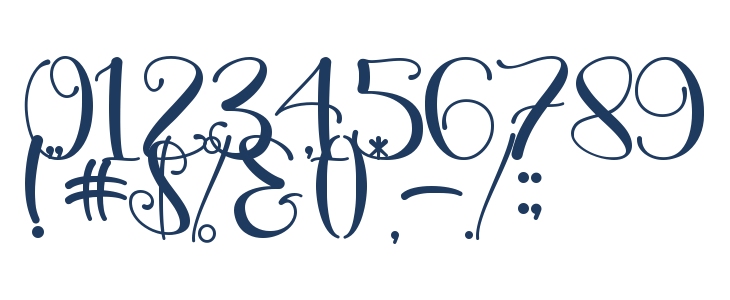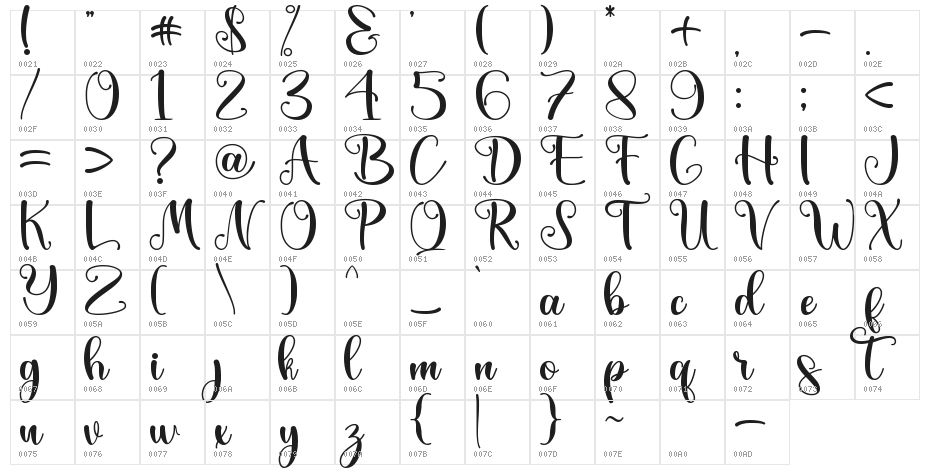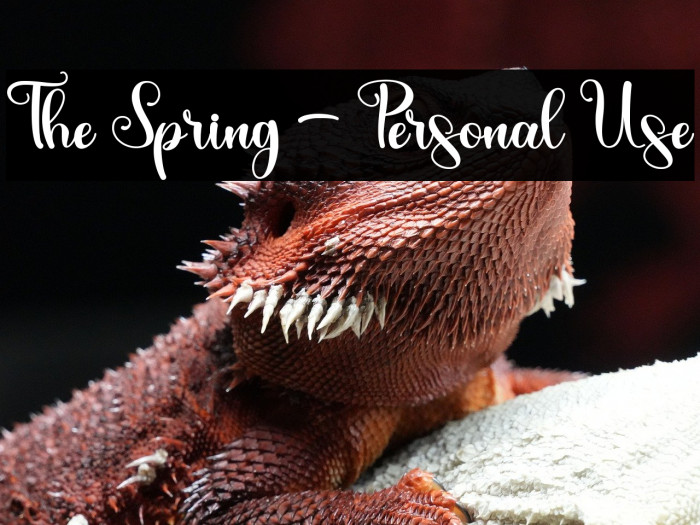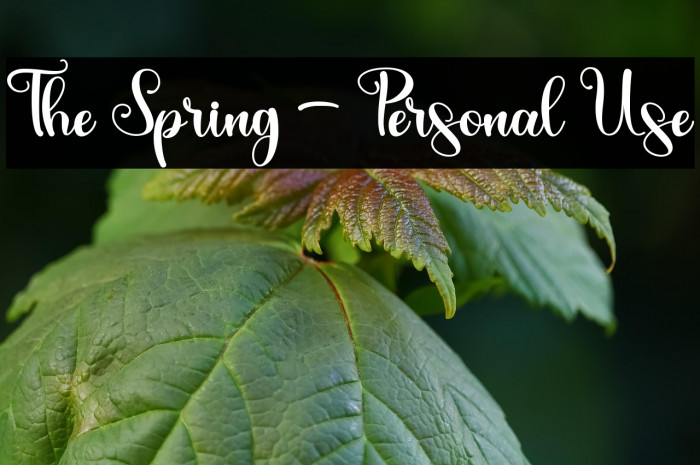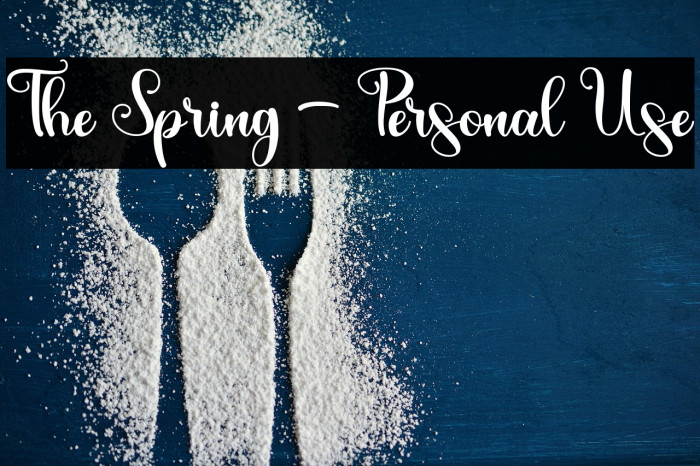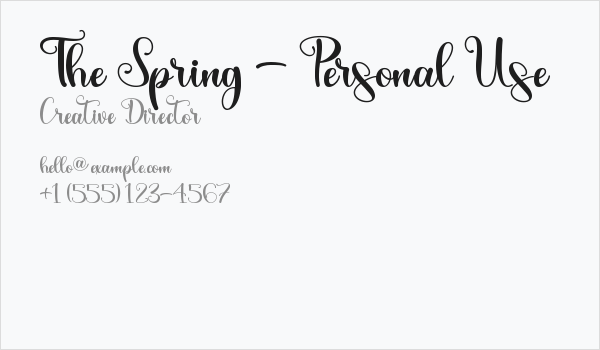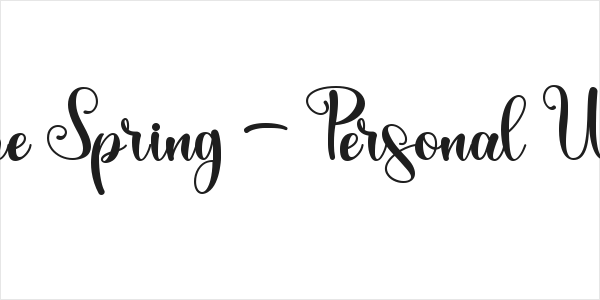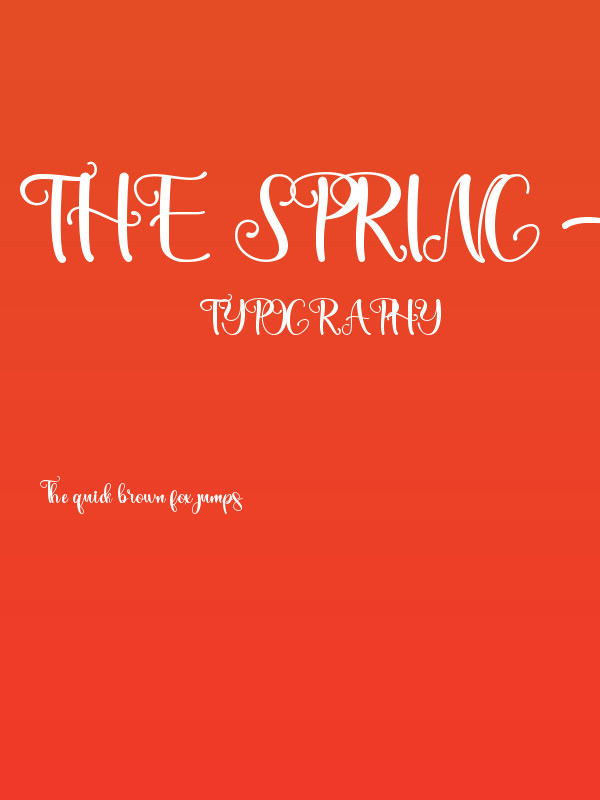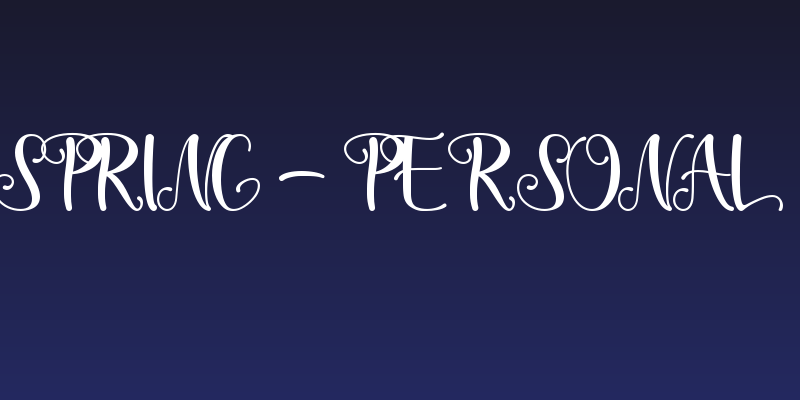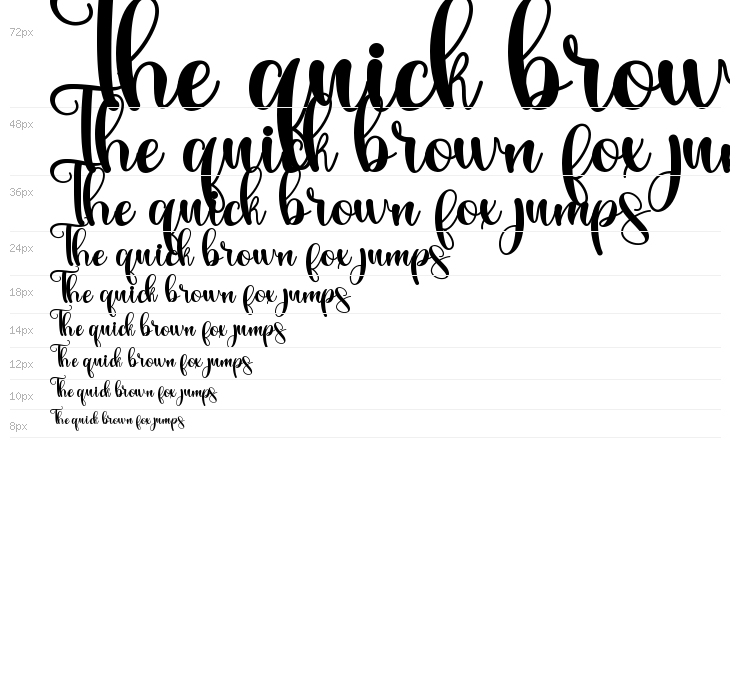
The Spring - Personal Use Font
The Spring - Personal Use Description
This font features an elegant and flowing script style with a playful yet sophisticated appearance. The uppercase letters are adorned with delicate swirls and loops, giving them a whimsical and decorative flair. The lowercase letters maintain a consistent flow, with smooth curves and a slightly exaggerated height, enhancing readability while maintaining a stylish look. Numbers and special characters are crafted with the same attention to detail, ensuring a cohesive design throughout. The overall aesthetic is both modern and classic, making it versatile for various design needs.
| Use Case | Logos, Invitations, Decorative text |
| Proposed Projects | Ideal for wedding invitations, greeting cards, branding projects, and elegant packaging designs. |